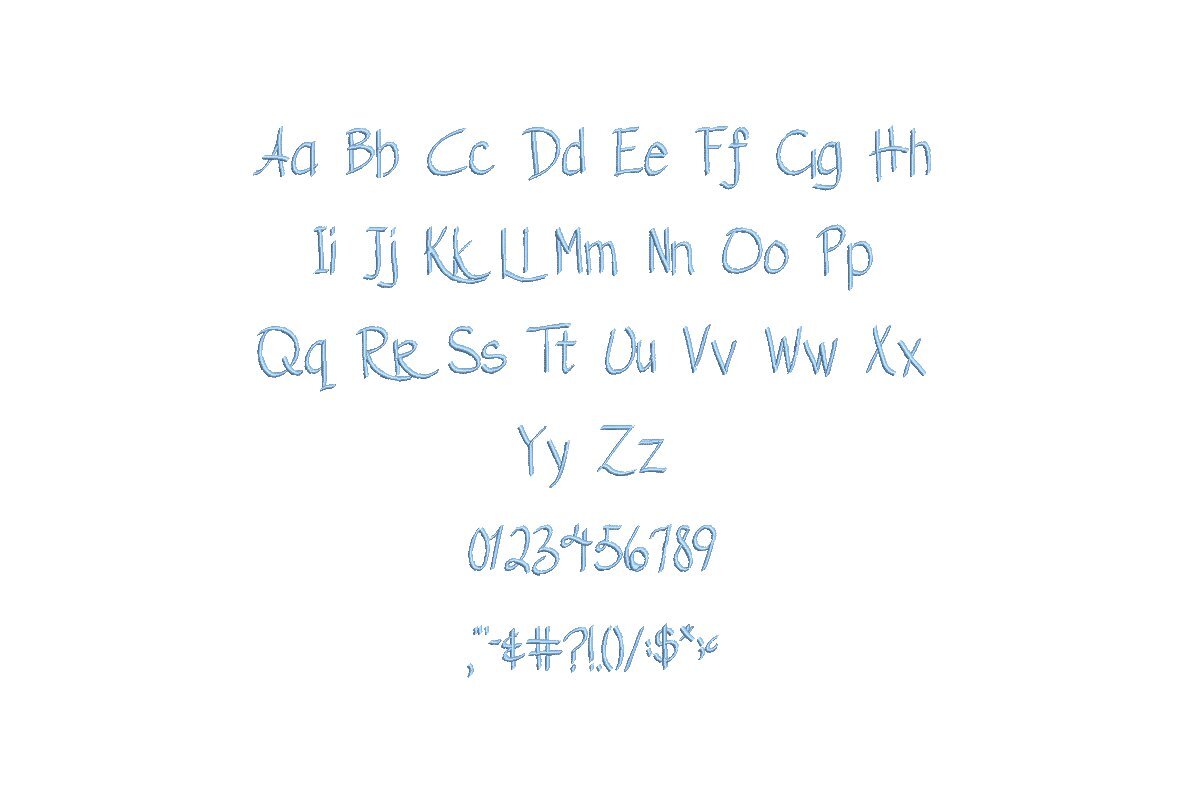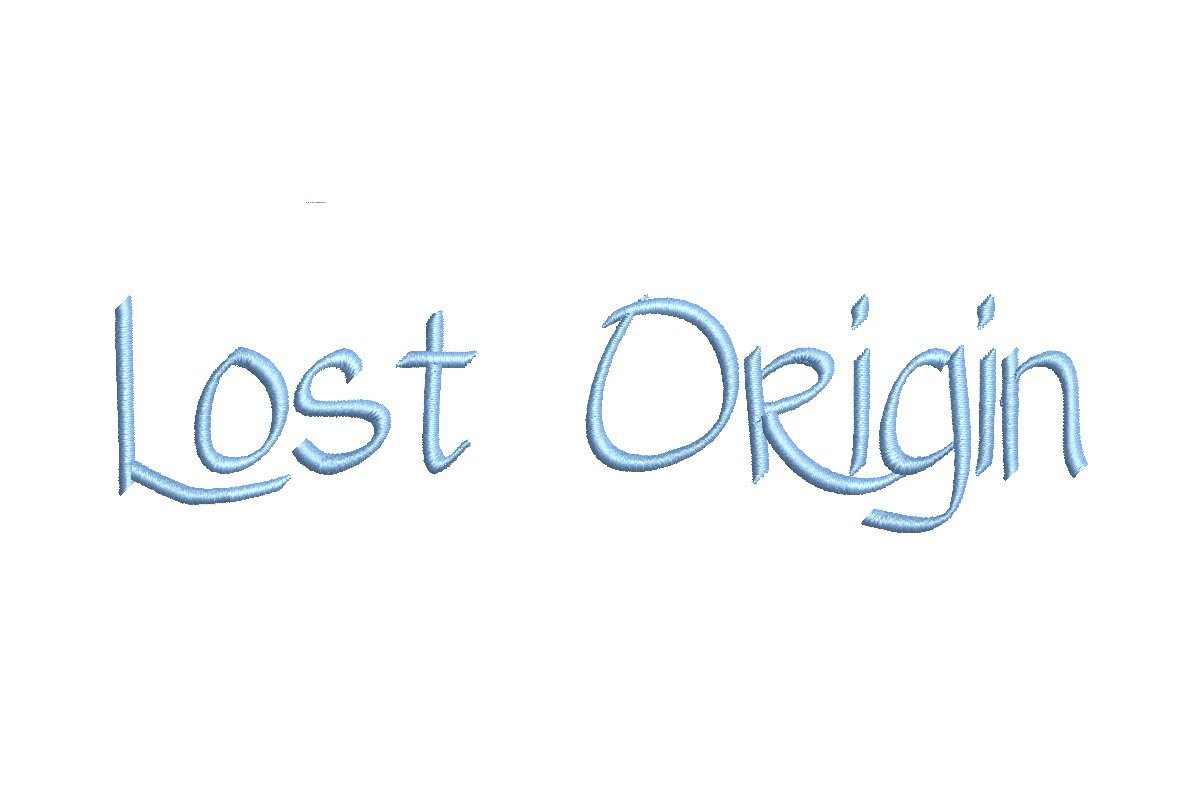
Introducing the Lost Origin ESA font, your portal to timeless embroidery mastery. Expertly crafted for seamless compatibility with Wilcom Studio e4.5.6 and Hatch 3 versions and up, this font effortlessly integrates into your digitizing process. Lost Origin ESA offers unparalleled precision and versatility, perfect for monograms, intricate text, and artistic designs. Elevate your embroidery projects with its exceptional quality and classic style. Create professional and captivating designs effortlessly on various fabrics and items. Don't miss the chance to enhance your embroidery journey. Choose the Lost Origin ESA font today and unlock a world of creativity and precision with every stitch, setting new standards for your embroidery excellence.